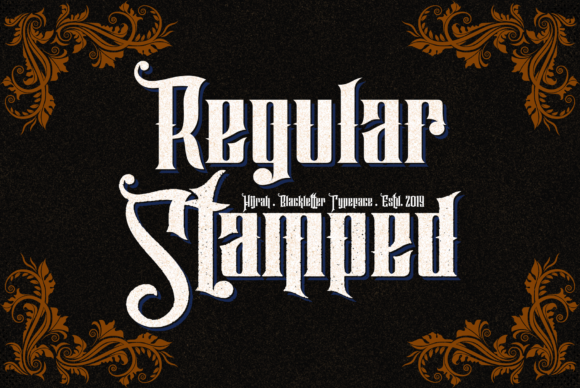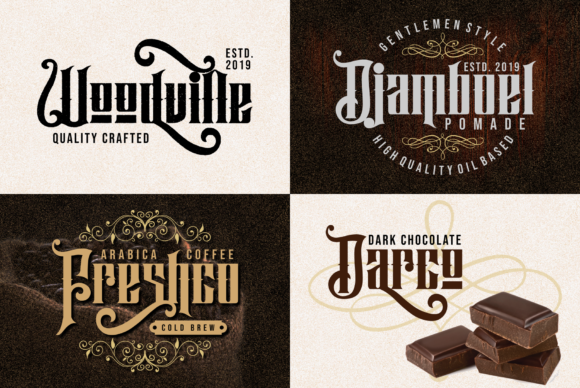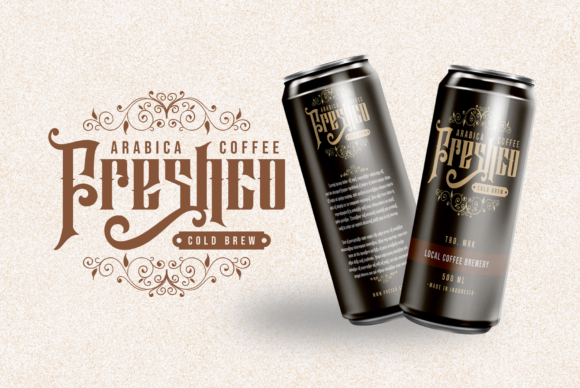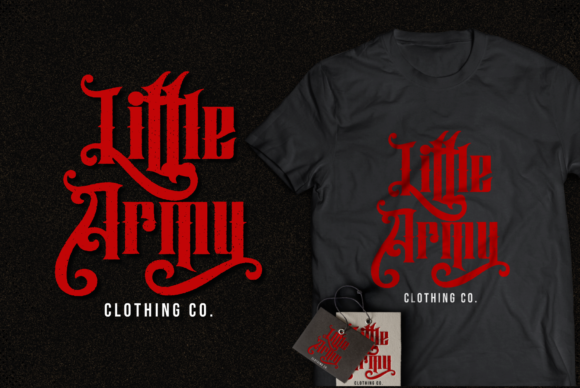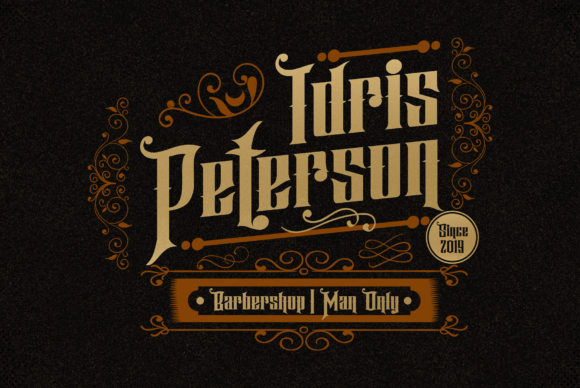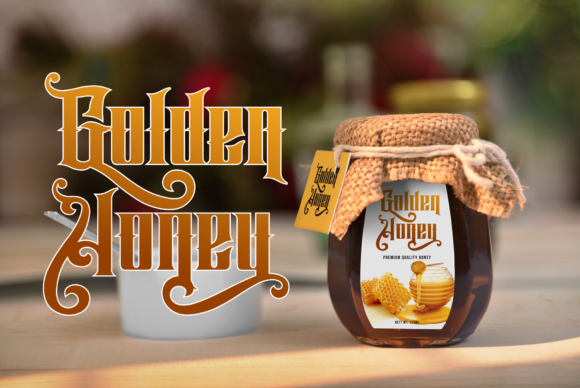
Introduction to Hijrah Font Font
Fonts play a crucial role in design, and the Hijrah Font font is a typeface that brings both character and versatility to any project. Whether you’re working on a branding project, a website, or a print design, the Hijrah Font font offers a unique style that can elevate your work.
Hijrah is an old-school blackletter font with a stunning look & feel.
Use it for any design project that requires a personalized appearance .
Key Features of Hijrah Font Font
Why Choose Hijrah Font Font?
The Hijrah Font font is more than just a typeface – it’s a design tool that helps you communicate your message with style and clarity. Its unique character set and versatile design make it suitable for a wide range of applications, from elegant invitations to bold headlines.
With its carefully crafted letterforms and balanced proportions, the Hijrah Font font ensures readability and visual appeal across all mediums.
What makes Hijrah Font font special?
The Hijrah Font font stands out with its unique design, exceptional readability, and versatility across various design applications.